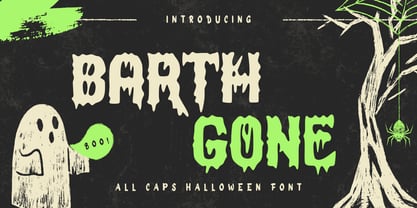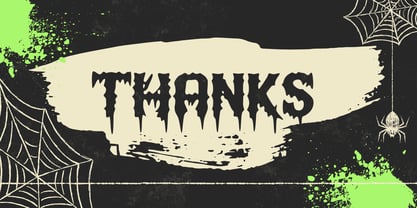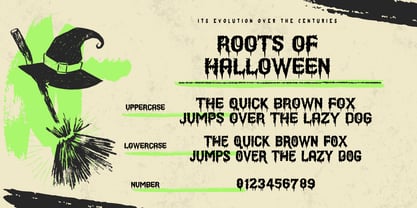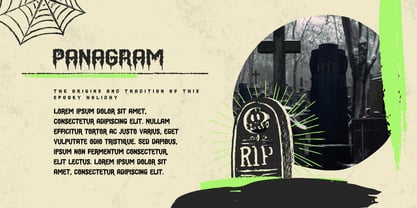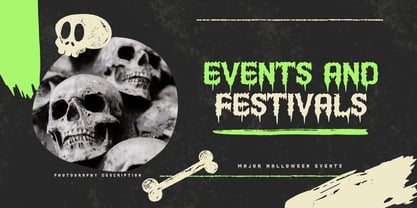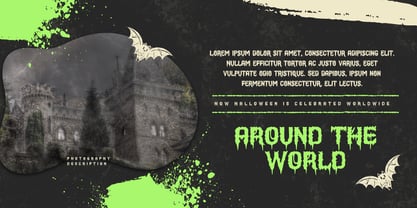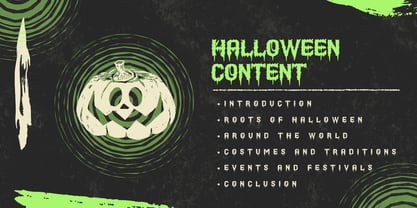
Barth Gone
by Beary
The Barth Gone Font Family was designed by Dian Haniffan Hadi and published by Beary. Barth Gone contains 1 styles. More about this family
Barth Gone is an ALL CAPS horror font with a sharp, torn, and damaged texture that delivers an intense dark, brutal, and suspenseful atmosphere. The letters look jagged and rough, like they were scratched or ripped—perfect for designs that need a fearless, aggressive, and high-impact look. This font is ideal for horror movie titles, survival games, zombie themes, Halloween posters, thriller book covers, extreme logos, and dark social media content.
Designers: Dian Haniffan Hadi
Foundry: Beary